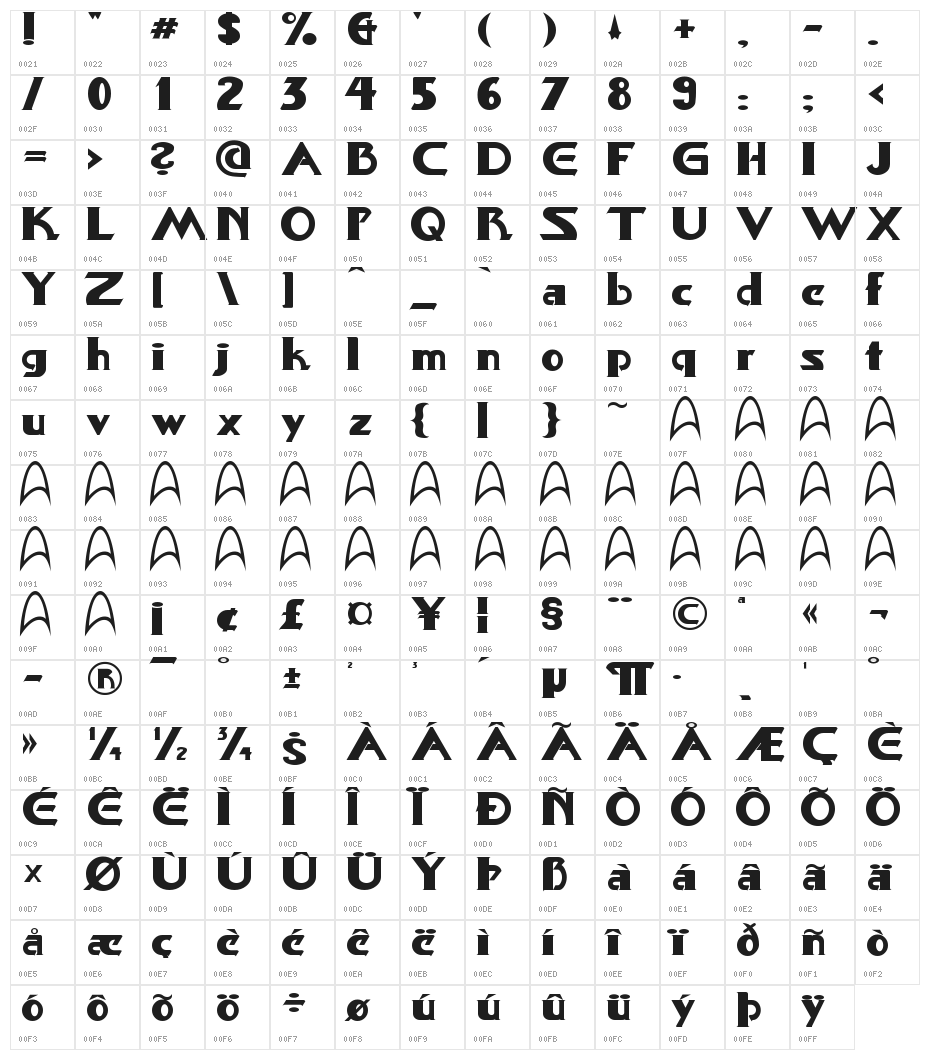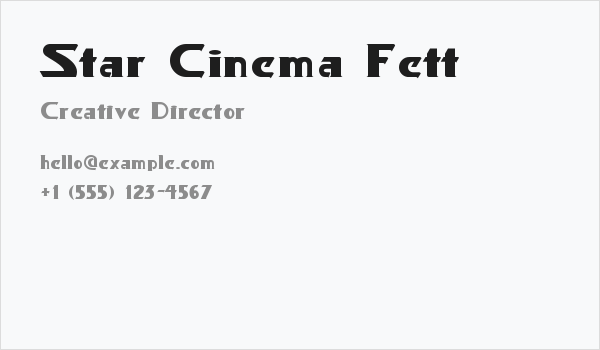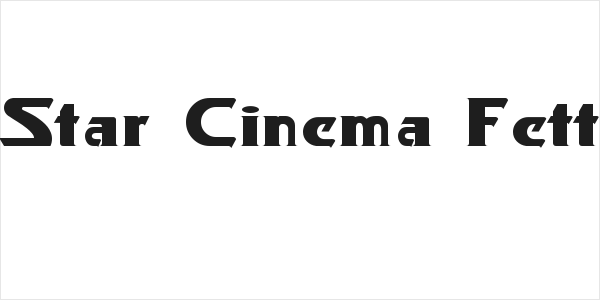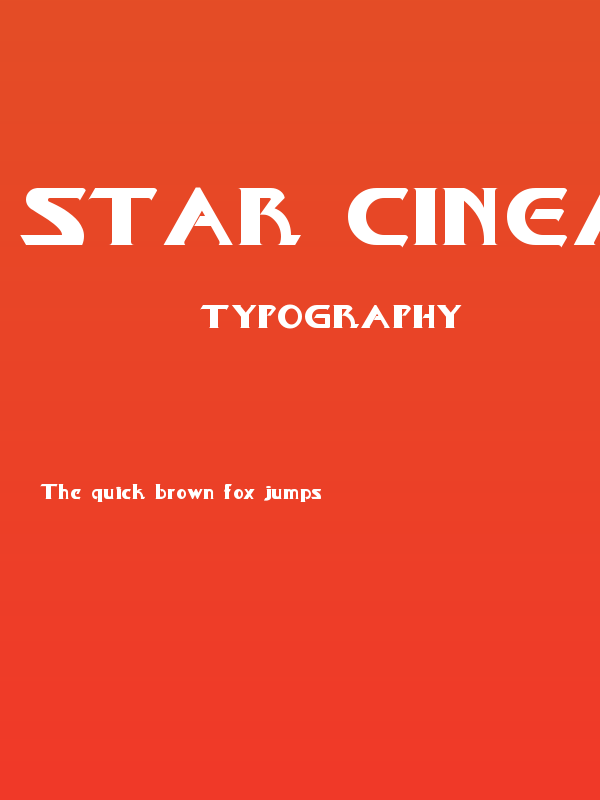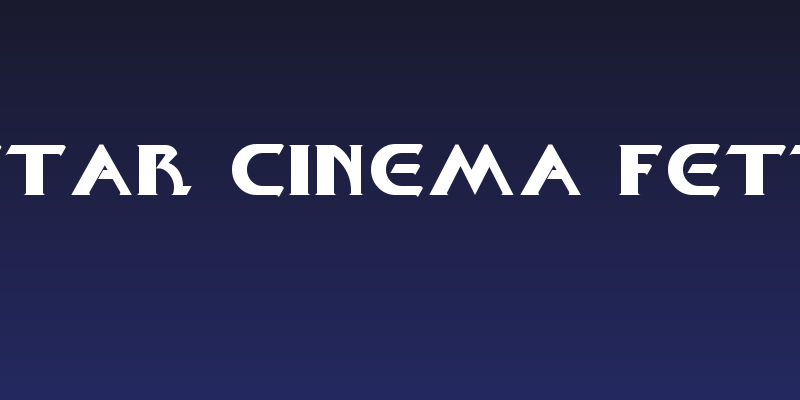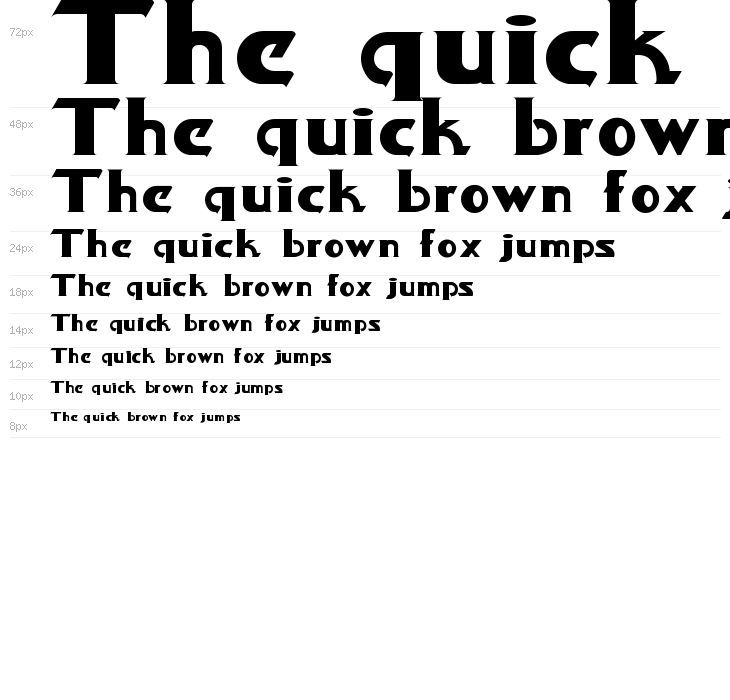
Star Cinema Fett Font
Star Cinema Fett Description
This font features a bold and dynamic design with a futuristic flair. The uppercase letters are characterized by sharp angles and geometric shapes, giving them a strong and commanding presence. The lowercase letters maintain a similar style, with unique cuts and curves that add to the font's distinctiveness. The numerals are bold and consistent with the overall aesthetic, ensuring readability and impact. Special characters are creatively designed, adding a touch of uniqueness to the font. The overall style is reminiscent of science fiction and modern design, making it suitable for projects that require a bold and eye-catching typeface.
| Proposed Projects | Ideal for movie posters, sci-fi book covers, video game titles, and branding for tech companies. |